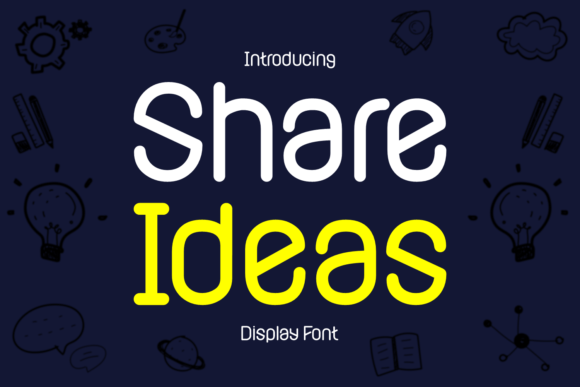
Share Ideas: A Playful Display Font for Creative Projects
In the crowded digital landscape, the difference between a message that gets ignored and one that sparks engagement often comes down to visual tone. Typography is not merely about legibility; it is a primary vehicle for conveying emotion and personality before a single word is read. For designers, marketers, and content creators looking to inject energy into their work, Share Ideas offers a distinct solution. This lively and fun display font brings a playful vibe to your designs, serving as an immediate signal of creativity and approachability. Whether you are crafting a presentation for a startup pitch or designing a poster for a community event, the right typeface can transform flat text into a vibrant conversation starter.
Understanding the Whimsical Style of Share Ideas
Share Ideas is designed with a specific intent: to break the monotony of standard corporate typography. Its whimsical style features organic curves, dynamic spacing, and character shapes that feel hand-drawn yet polished. Unlike rigid sans-serifs or traditional serifs that prioritize neutrality, this font leans into expression. It mimics the energy of a brainstorming session where ideas are flowing freely and without constraint. This makes it particularly effective for projects that require a human touch, suggesting that the content behind the text is innovative, friendly, and open to collaboration.
The versatility of Share Ideas lies in its ability to balance fun with readability. While it is classified as a display font, meaning it shines in headlines and short bursts of text, its structure remains clear enough to be understood quickly. This balance is crucial for modern communication, where audiences scan content rapidly. The font infuses text with a cheerful and dynamic energy, ensuring that even brief messages feel substantial and engaging. By choosing a typeface with such distinct character, you are making a deliberate design choice to align your brand or project with values of joy and creativity.
Enhancing Presentations and Visual Storytelling
For professionals working on presentations, the stakes are high. You have seconds to capture an audience's attention before they disengage. Using a standard font for every slide can lead to visual fatigue, causing key points to blend together. Integrating Share Ideas into title slides or section headers can act as a visual anchor, signaling a shift in tone or highlighting a core concept. Imagine a slide deck for a creative agency or an educational workshop; the playful nature of the font immediately sets a relaxed atmosphere, encouraging the audience to participate rather than passively listen.
This font is especially useful when presenting complex ideas that need to feel accessible. If you are explaining a new strategy or a technical concept to a non-technical audience, the approachable aesthetic of Share Ideas can lower barriers to understanding. It suggests that the information is digestible and exciting. However, it is important to use it strategically. Pairing this display font with a clean, neutral body font ensures that the long-form text remains easy to read while the headings provide the necessary pop of personality. This combination supports clarity while maintaining the energetic vibe that defines the project.
Boosting Engagement in Social Media Graphics
Social media platforms are visually saturated environments where users scroll through hundreds of images daily. To stop the scroll, your graphics must stand out instantly. Share Ideas is perfectly suited for social media posts, stories, and ad creatives because its whimsical style draws the eye naturally. When used in Instagram quotes, Twitter headers, or LinkedIn carousel covers, the font conveys a sense of authenticity that resonates with modern consumers who value genuine connection over corporate stiffness.
Consider a small business owner promoting a local event or a blogger sharing a personal milestone. Using a font that feels like a handwritten note or a doodle creates an emotional bridge with the viewer. It transforms a promotional post into a piece of art that people want to share. The cheerful energy of the font aligns well with positive messaging, announcements, and calls to action that require enthusiasm. By letting your ideas shine with this engaging typeface, you increase the likelihood of interaction, as the visual appeal prompts users to pause and read the accompanying message.
Practical Applications for Posters and Print Materials
Beyond the digital realm, Share Ideas excels in print applications where physical presence matters. Posters for workshops, flyers for community gatherings, and packaging for lifestyle products all benefit from a typeface that feels tactile and warm. In a retail environment, packaging that utilizes this font can differentiate a product on the shelf, suggesting that the item inside is crafted with care and joy. For educators creating classroom materials or bulletin boards, the font helps create an inviting learning space that encourages curiosity.
When designing posters, the large scale allows the unique details of the font to truly shine. The curves and quirks of the letterforms become part of the overall composition, adding texture and depth to the design. This is particularly effective for events that aim to attract a diverse crowd, as the inclusive and friendly nature of the typography appeals to a broad demographic. It signals that the event is not just another obligation, but an opportunity for fun and connection.
Who Benefits Most from This Typeface?
While Share Ideas has broad appeal, certain groups will find it particularly valuable. Entrepreneurs and freelancers who build their brands around personal connection and creativity can leverage this font to establish a strong visual identity. Marketers targeting younger demographics or families will find that the playful vibe resonates deeply with these audiences. Educators and publishers looking to make learning materials more engaging can use it to break up dense text and highlight key takeaways.
Ultimately, the goal of typography is to support the message. Share Ideas succeeds by making every message feel vibrant and approachable. By understanding its strengths and limitations, you can harness its potential to elevate your designs, save time on styling decisions, and ensure your creative vision is communicated clearly and effectively. Whether you are launching a new campaign or simply wanting to add a spark of joy to your daily work, this font offers a practical path to more engaging visual communication.